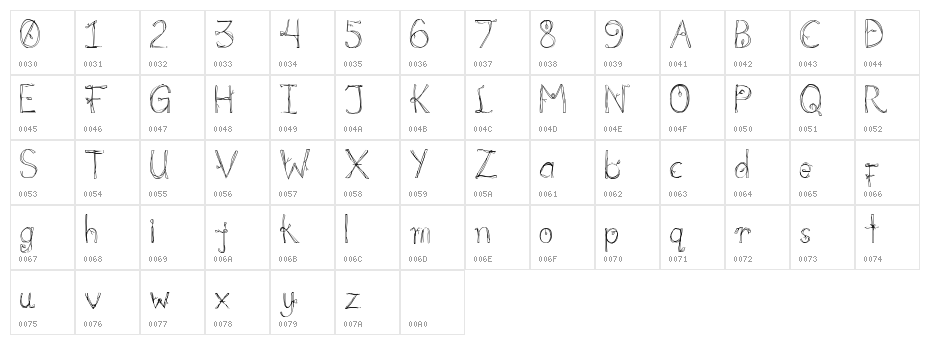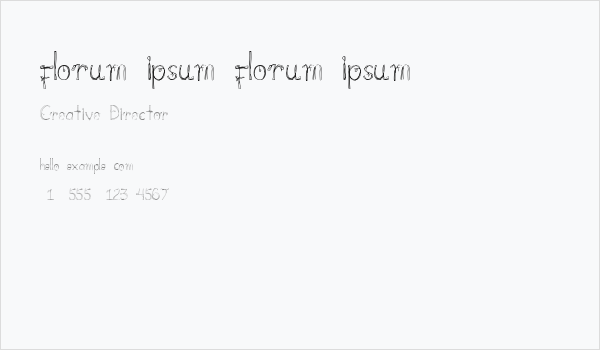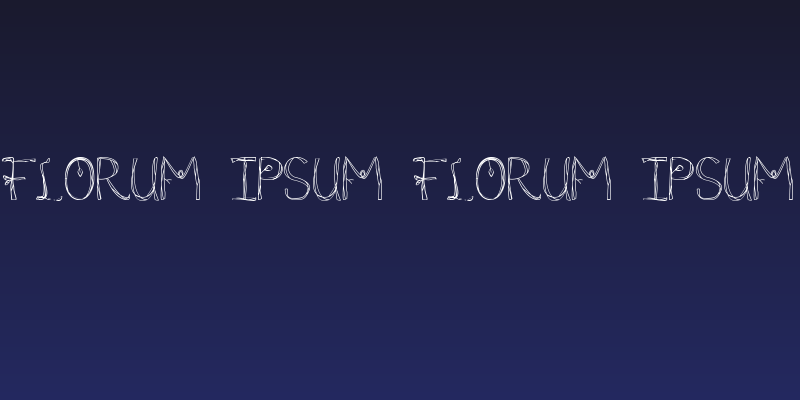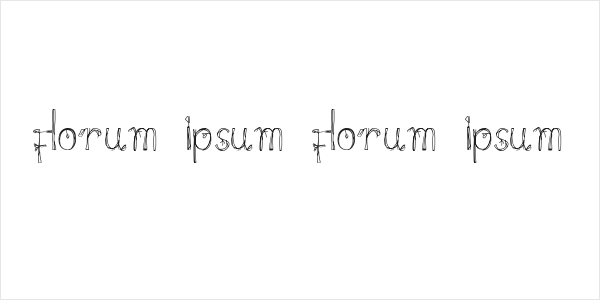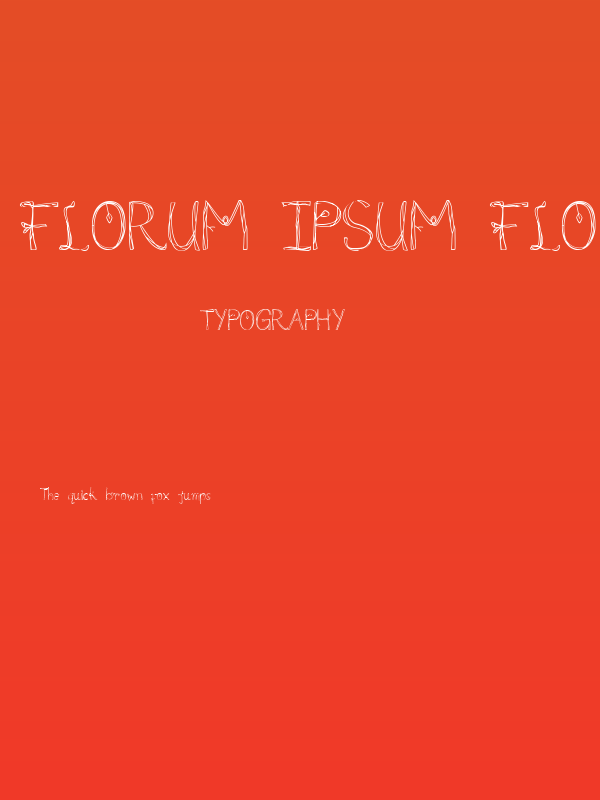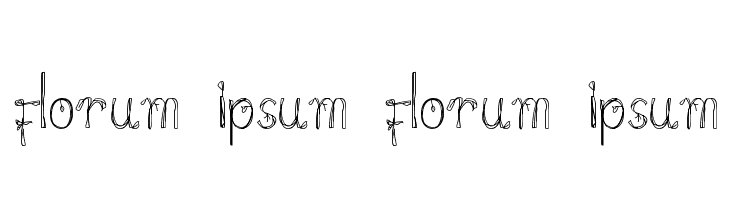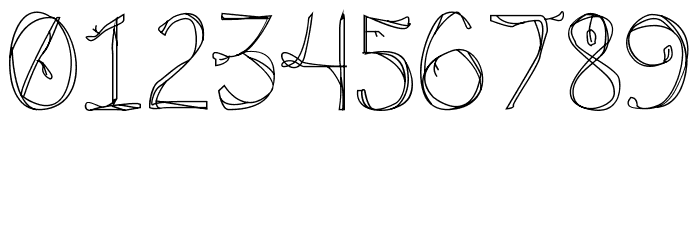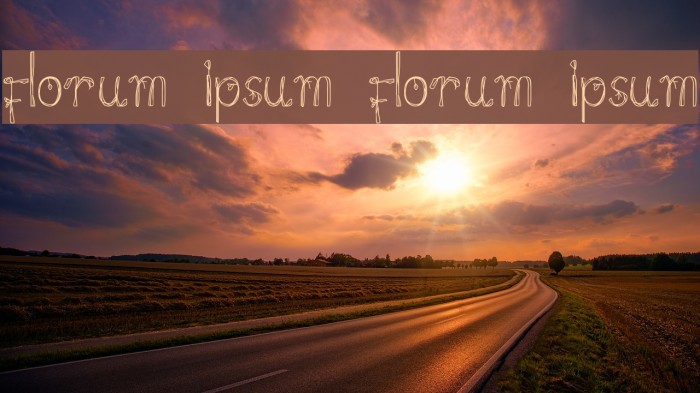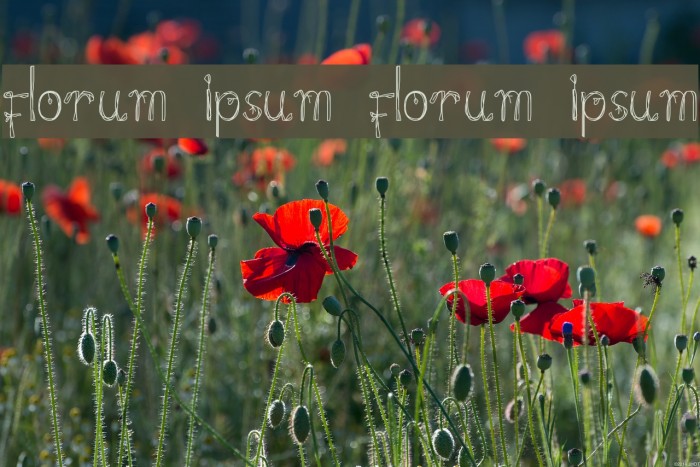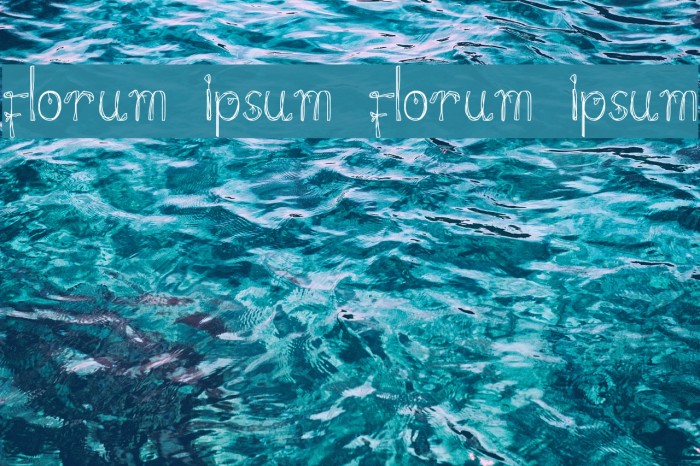
florum ipsum Font
florum ipsum Description
This font features a whimsical and decorative style, characterized by its intricate, hand-drawn appearance. Each letter is adorned with loops and swirls, giving it a playful and artistic flair. The strokes are uneven, adding to the organic and freeform nature of the design. The uppercase and lowercase letters maintain a consistent style, with the uppercase being slightly more elaborate. Numbers and special characters follow the same decorative theme, ensuring a cohesive look across all glyphs. This font is ideal for projects that require a touch of creativity and uniqueness.